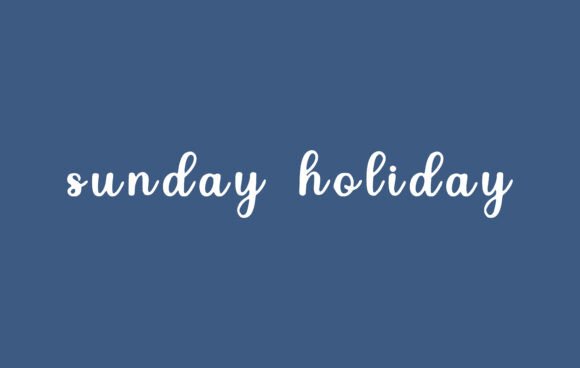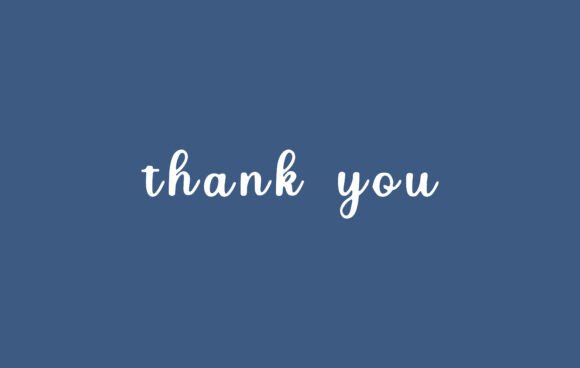
Introduction to Potomac Font
Potomac font is an authentic handwritten font with a romantic touch.
Key Features of Potomac Font
Why Choose Potomac Font?